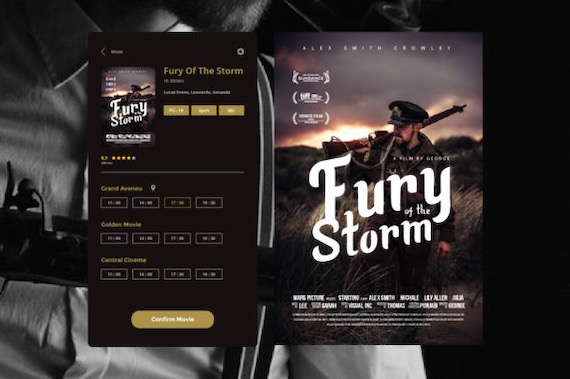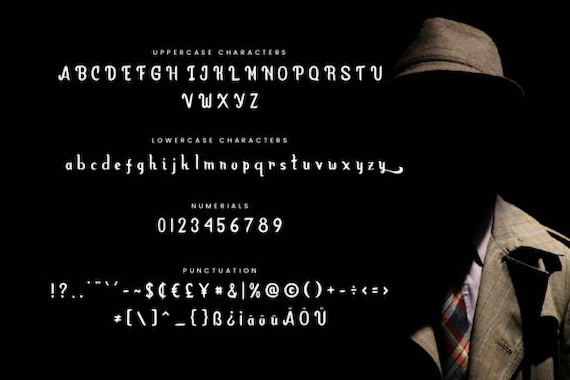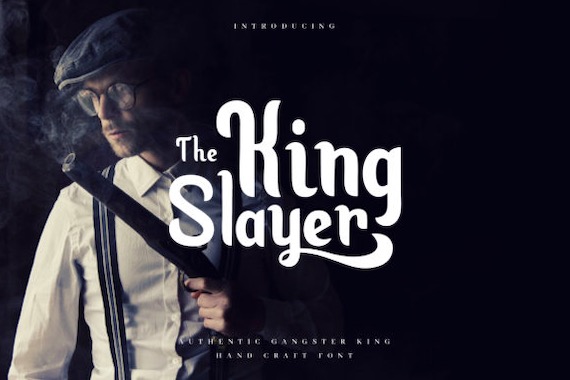
King Slayer Font
King Slayer font is a modern elegant beautiful serif typeface that is suitable to use for all design purposes. This display font was created and shared by naulicrea and makes your designs more professional.